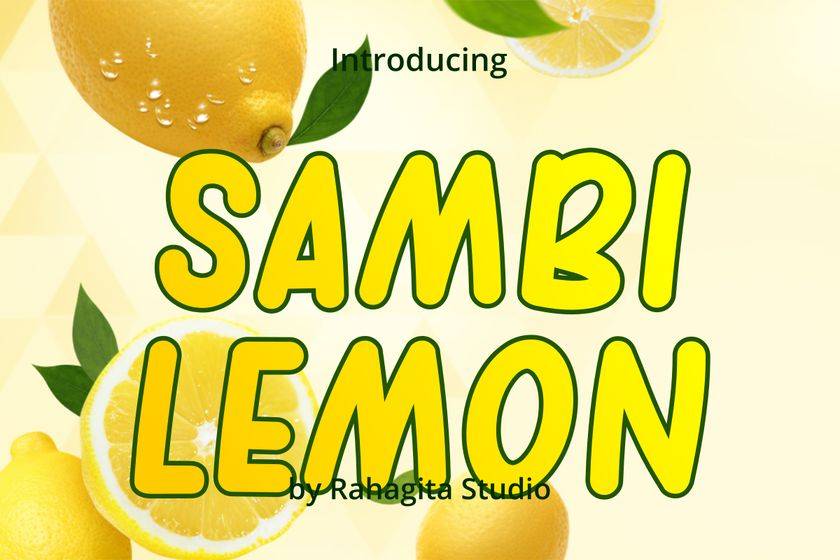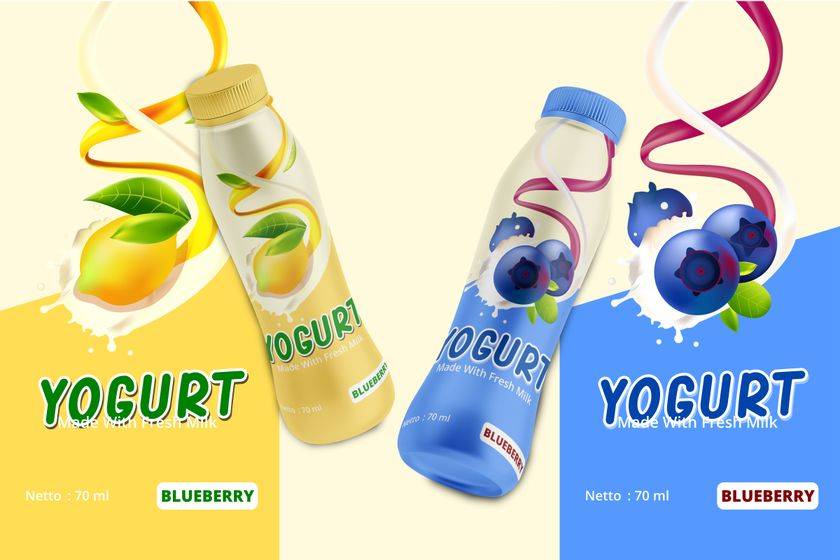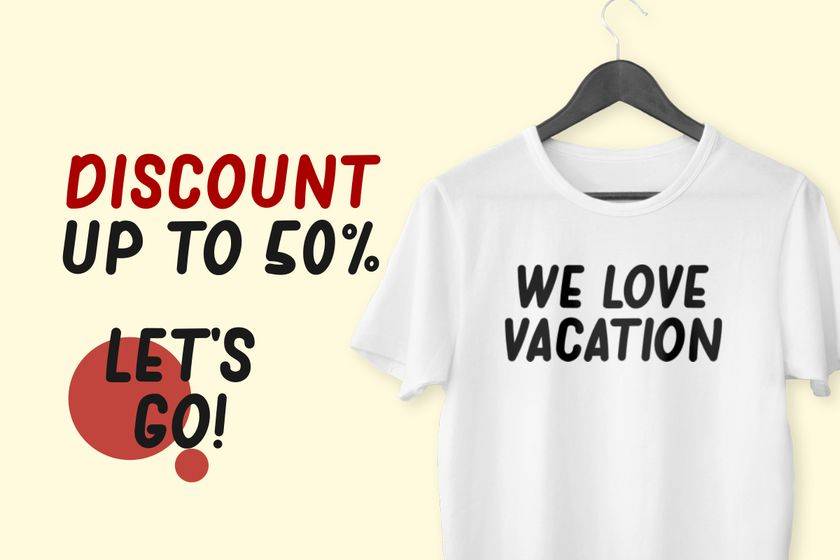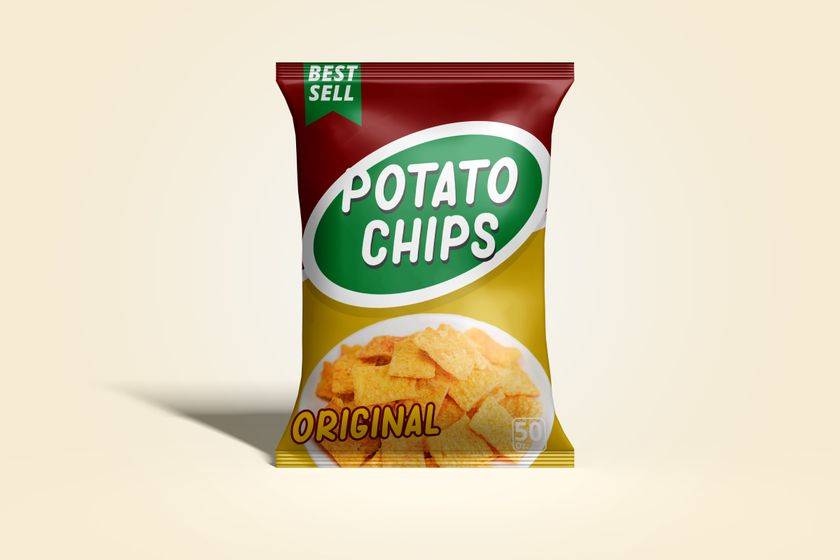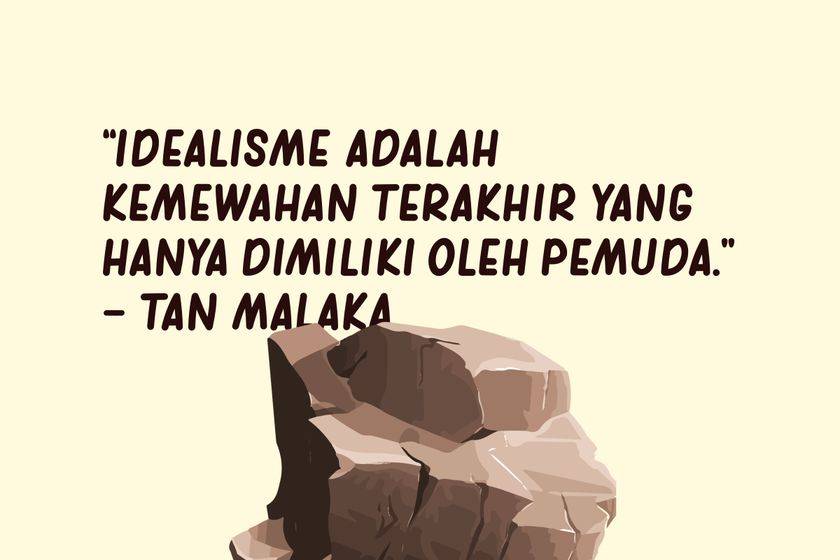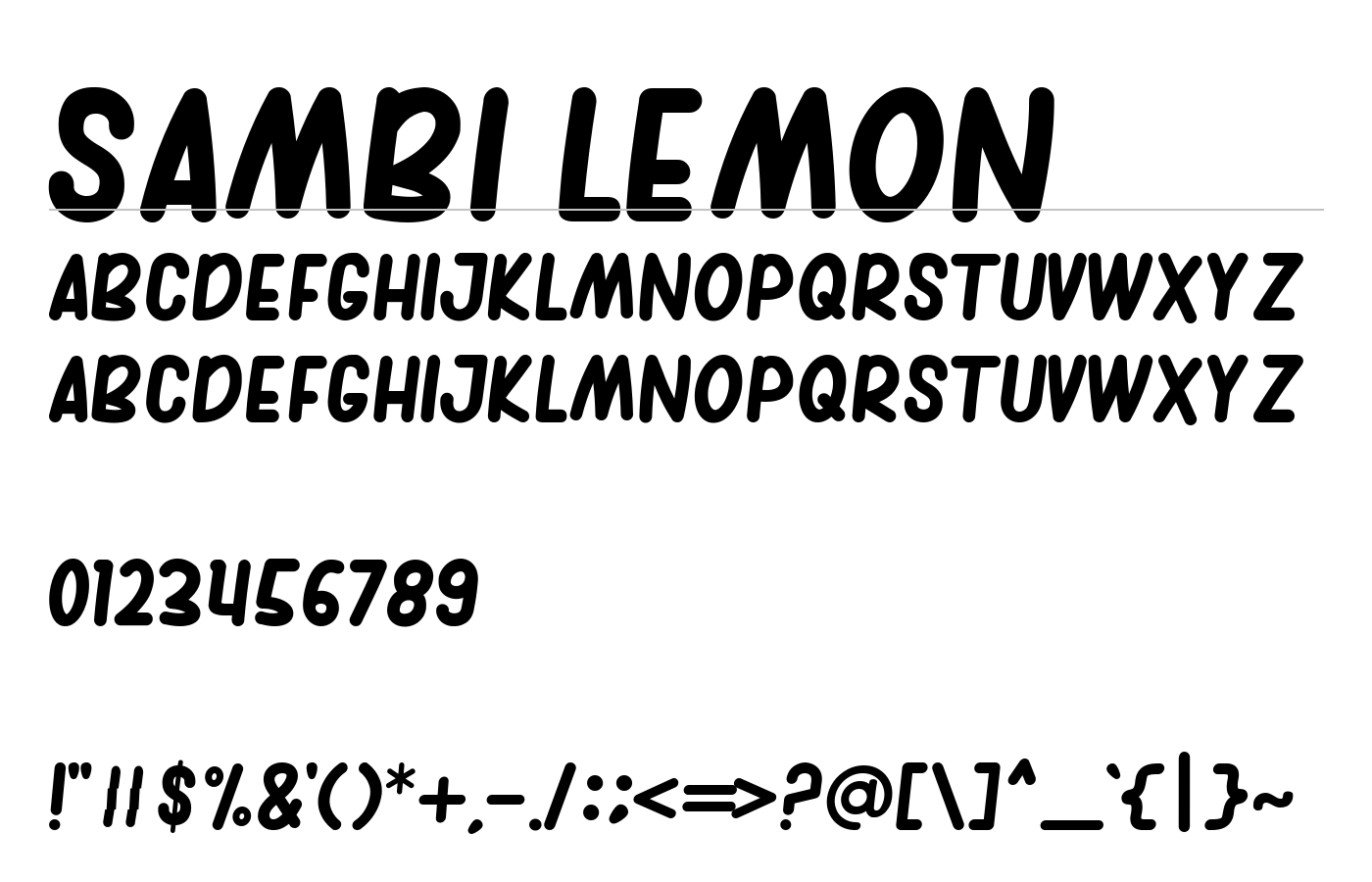
Sambi Lemon is a playful and bold sans serif font with rounded, slightly irregular letterforms that give it a friendly, hand-drawn feel. Its medium weight and slightly condensed width make it eye-catching and approachable, perfect for designs that want to convey warmth and charm without losing clarity. Ideal for headlines, logos, and casual branding, it adds a youthful and energetic vibe to any project.
Sambi Lemon Font
About Sambi Lemon Font